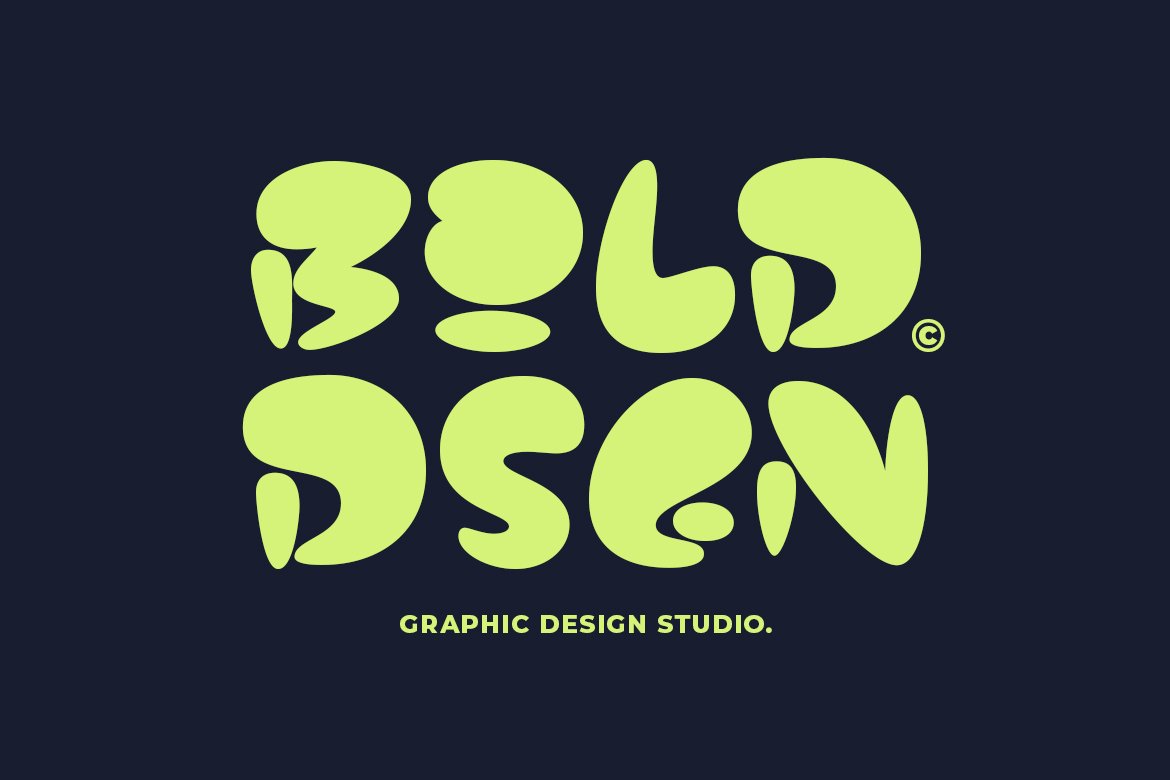
2. Groovy Urbain
GF Urbain
Groovy Urbain font is a chubby and bold display font with a delightful combination of vectors that form a cute and whimsical design.
This font is characterized by its chunky appearance and playful aesthetic, making it the perfect choice for cartoon-inspired projects.
The charming and friendly look of Groovy Urbain adds a touch of fun and creativity to any design, making it ideal for conveying a light-hearted and jovial tone.
Whether used in branding, illustrations, or any other creative endeavor, this font is sure to bring a sense of charm and character to the layout.